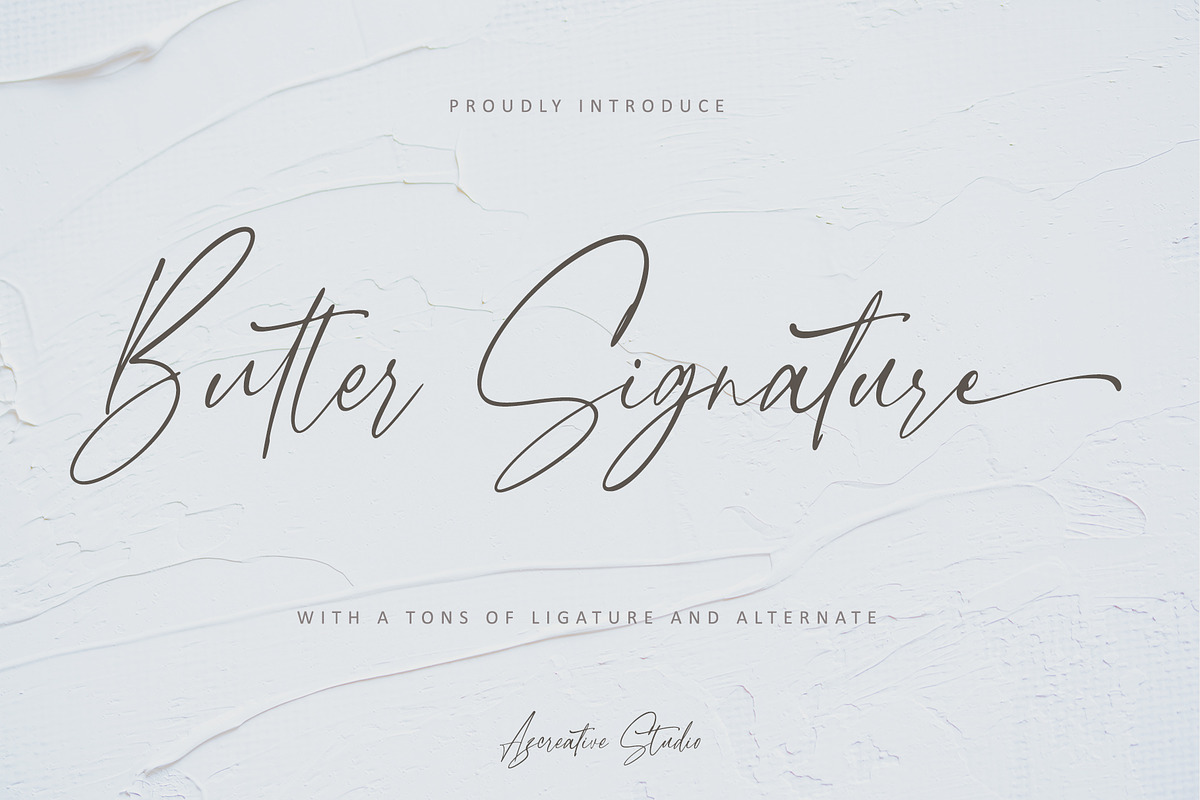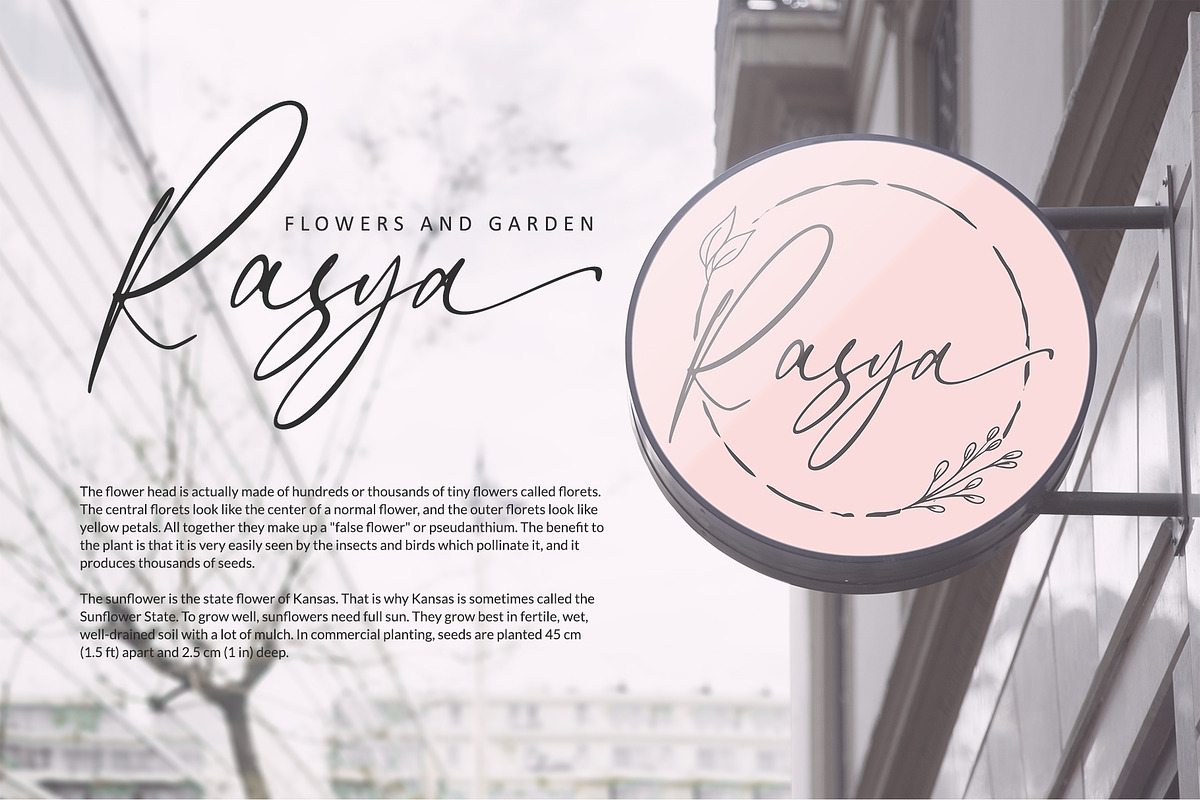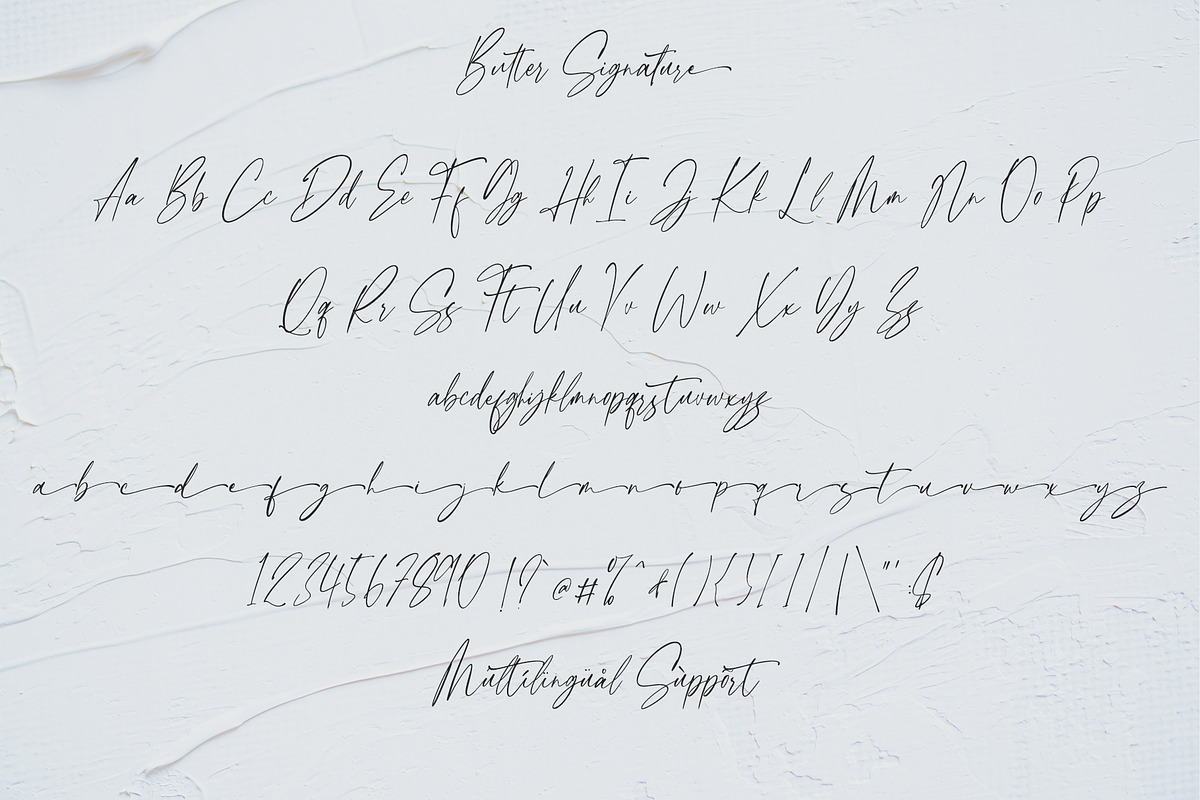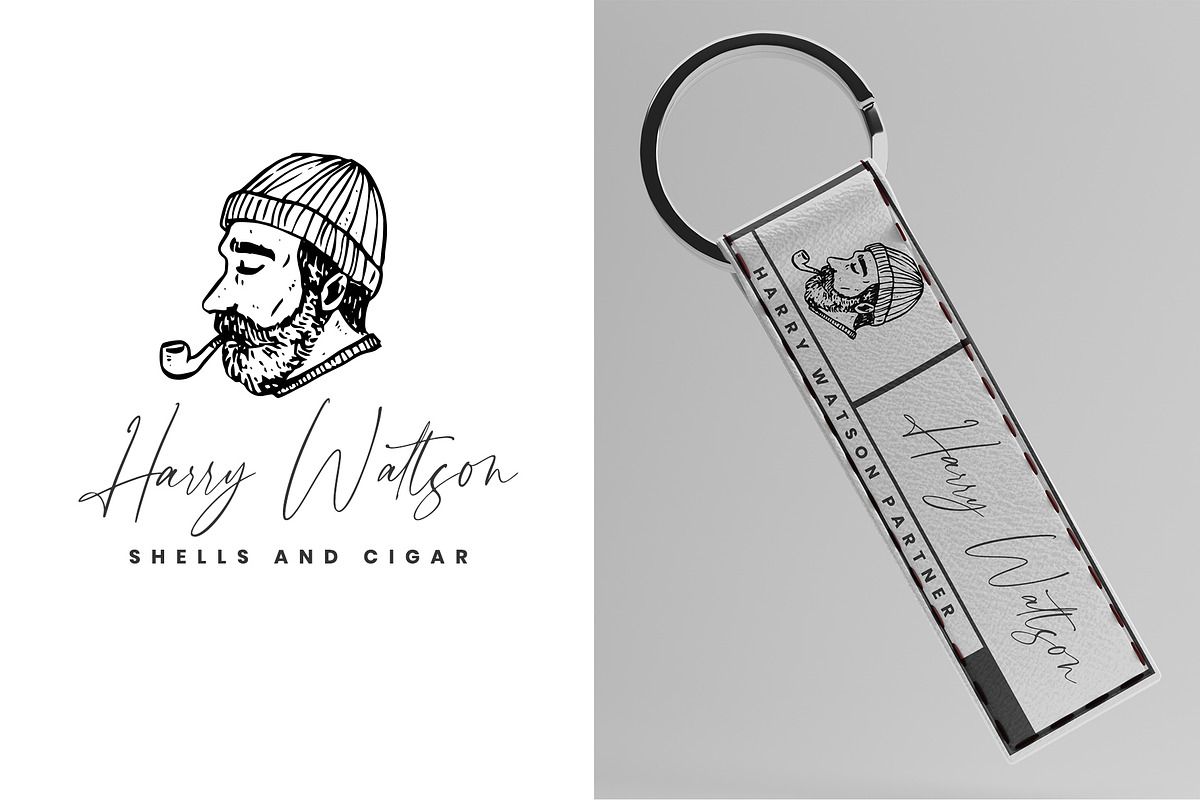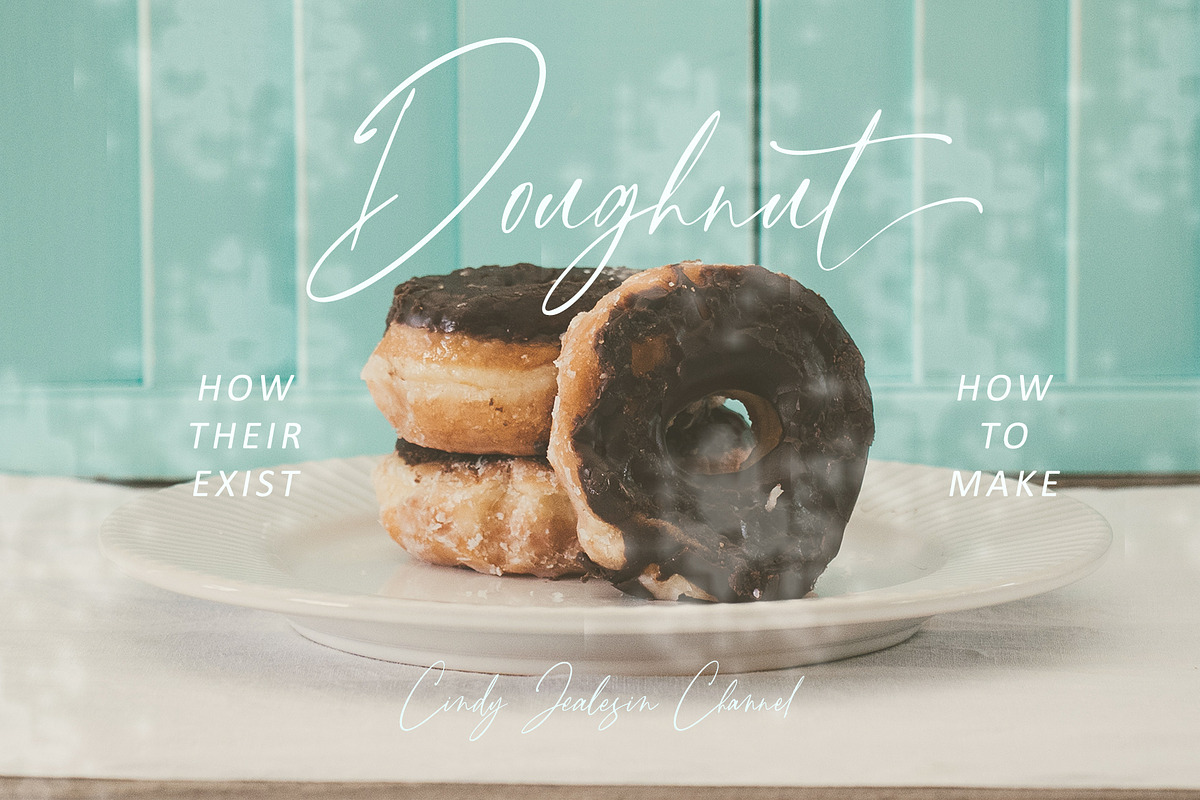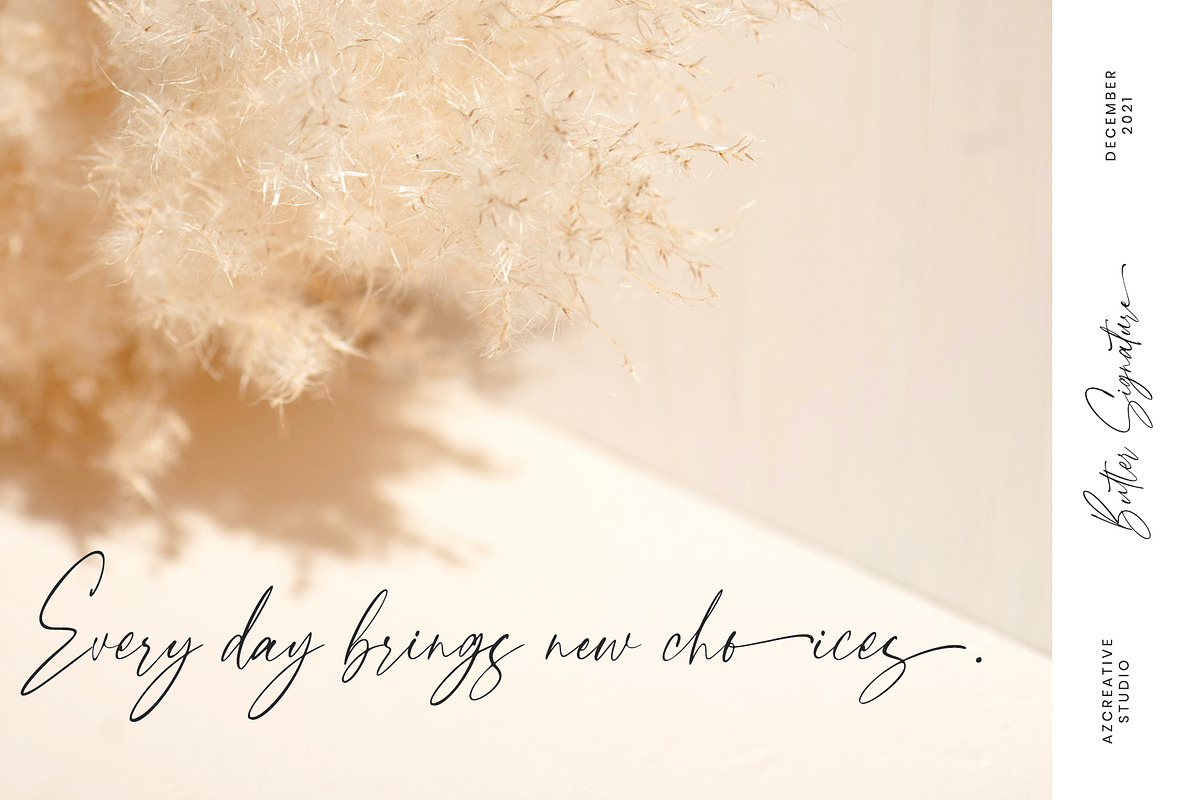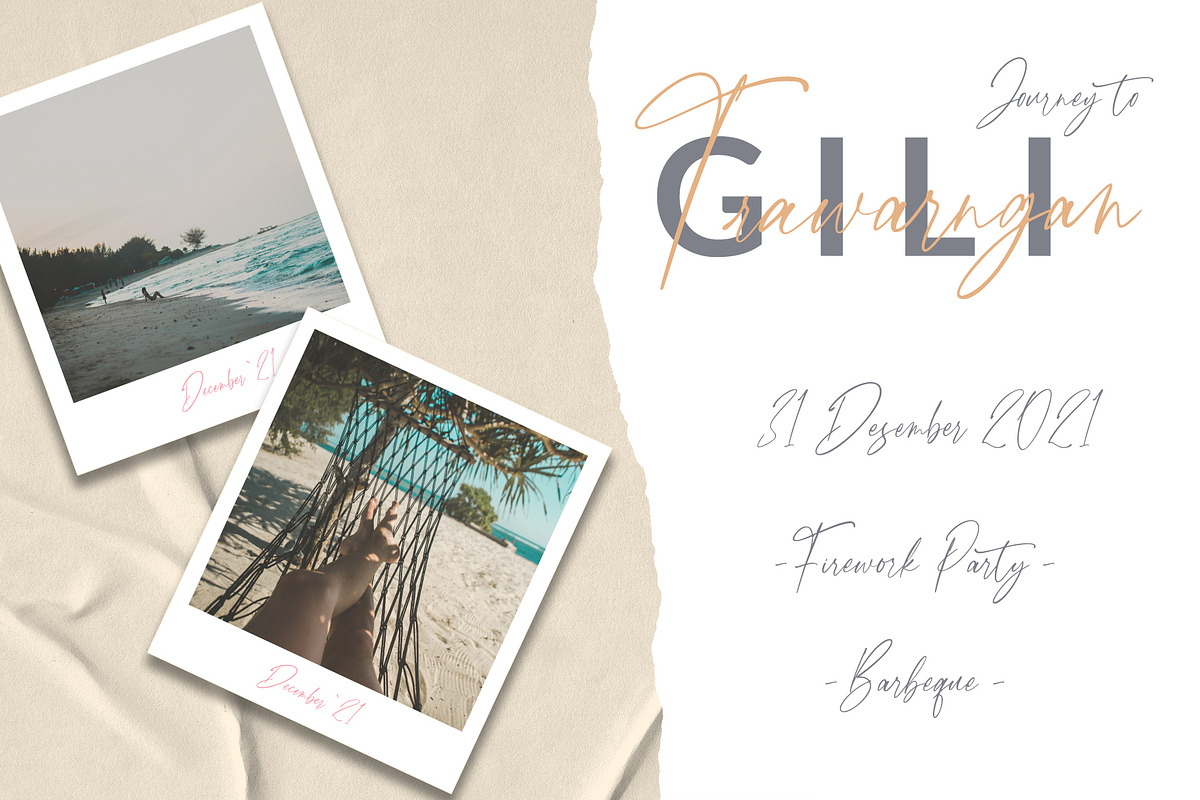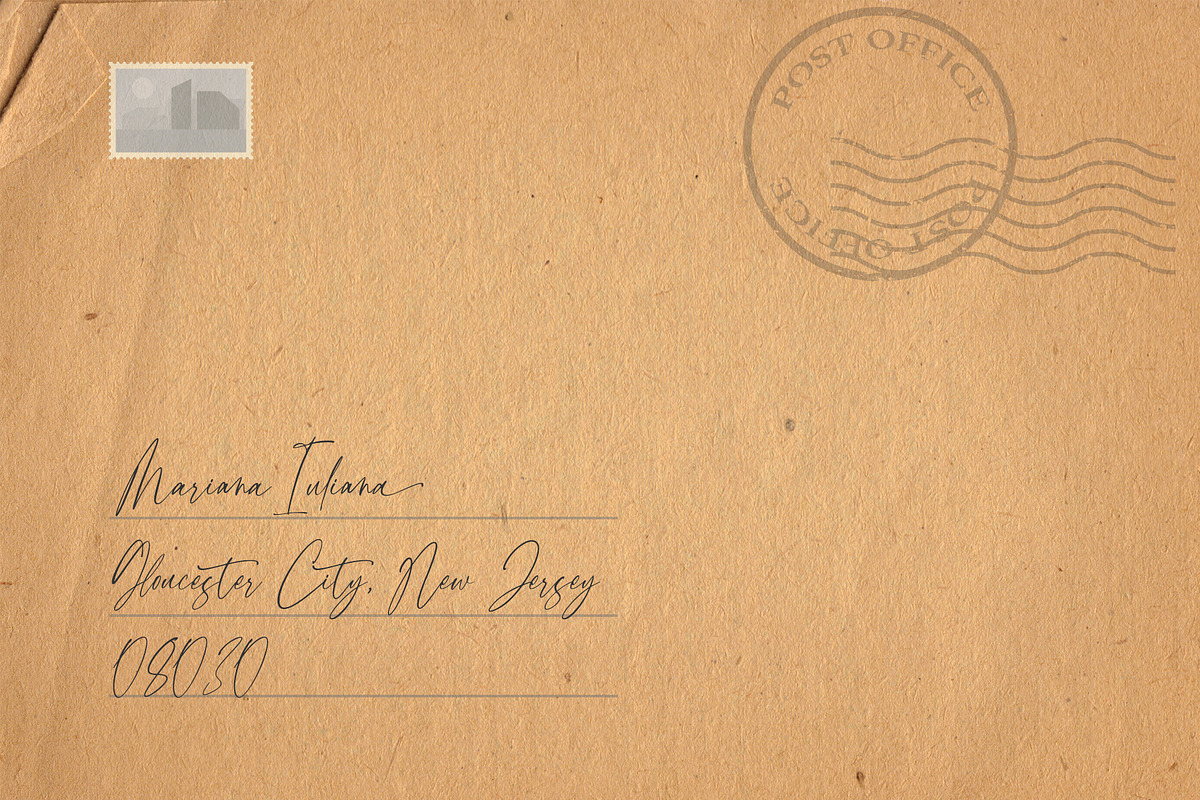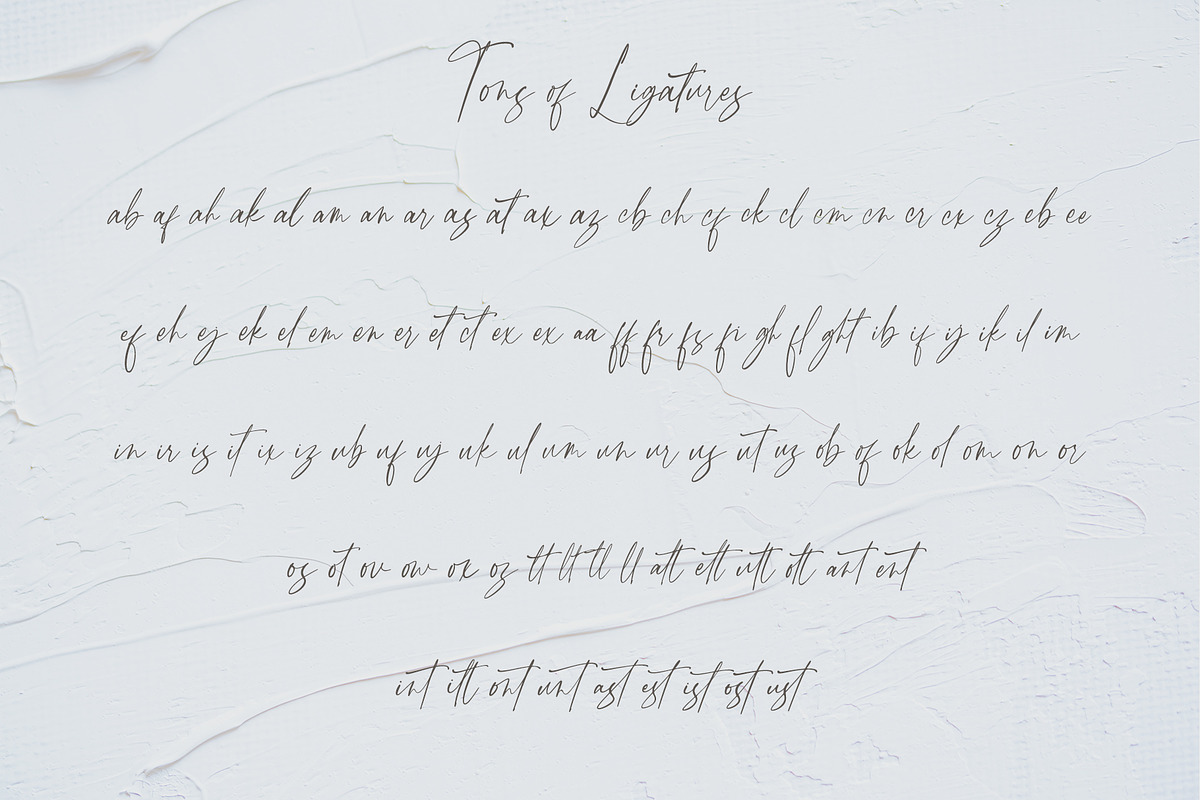
Butter Signature w/ Tons of Ligature
Introducing Butter Signature, a font with a natural handwritten style using a pen will make the design and writing on your articles more interesting. This font can be used in various designs such as invitation letter designs, magazine designs, poster designs, accessory designs and many more. You can also print this font to make articles or books, and you can give it a special touch with this font.